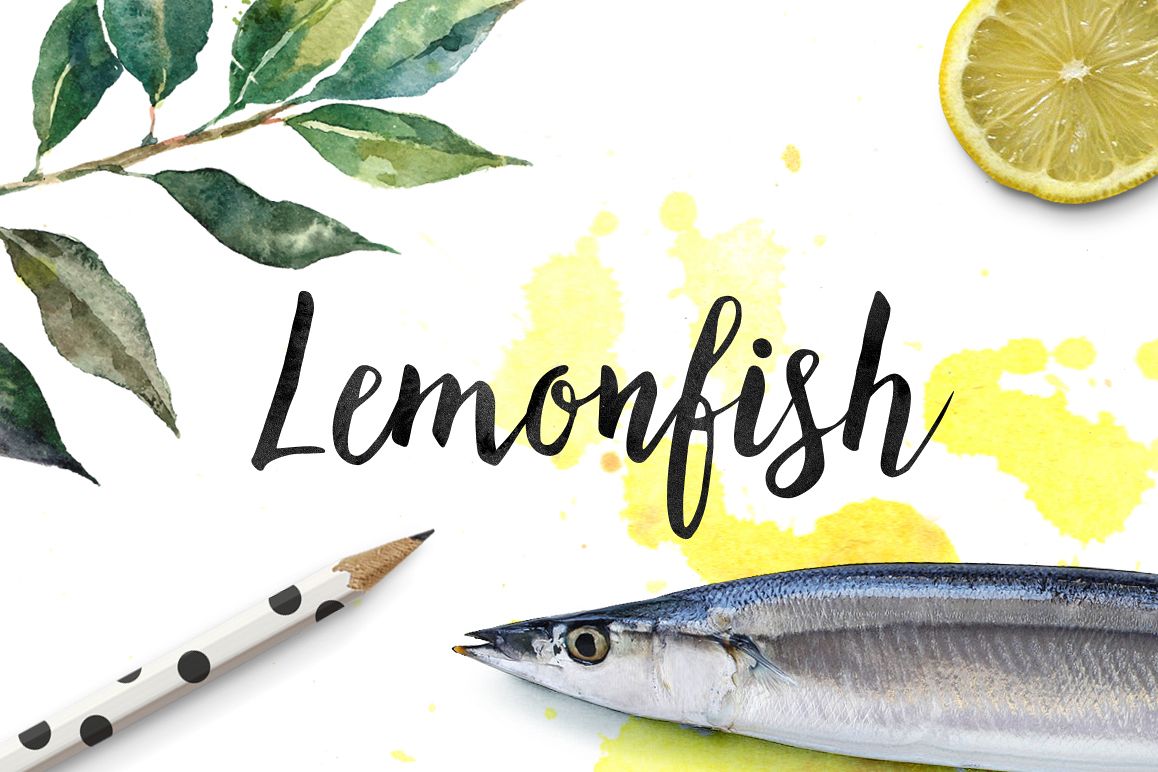
Lemonfish
Lemonfish.
I would like to introduce you **Lemonfish** – the cute handlettered script. **Lemonfish** will give to your work artistic handmade feel. Great for various kinds of your projects – wedding announcements, greeting cards, invitations, branding, logos etc. Include uppercase, lowercase and all basic English characters. Enjoy **Lemonfish**!